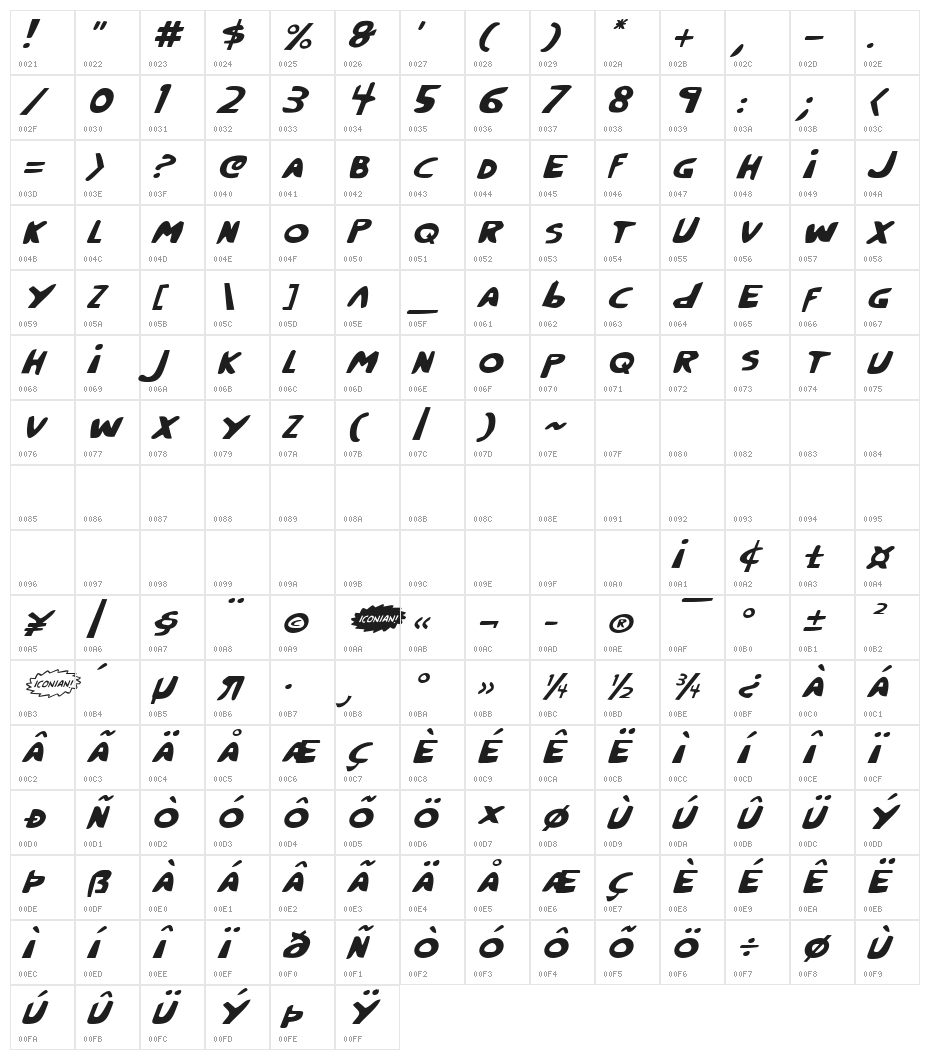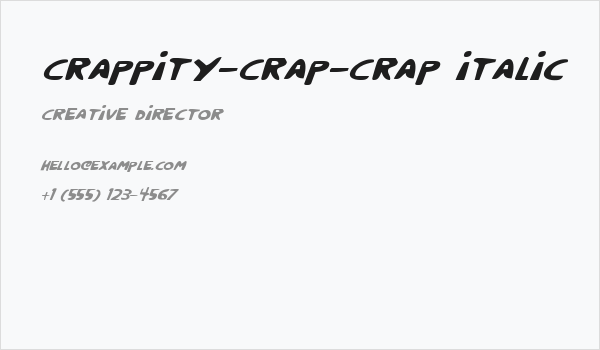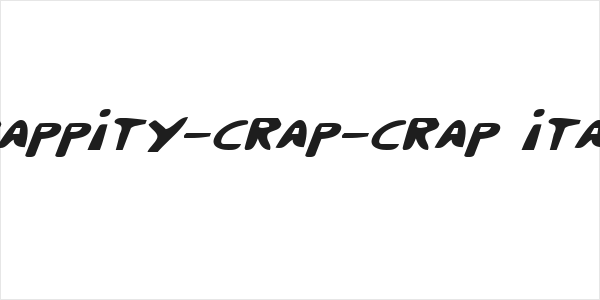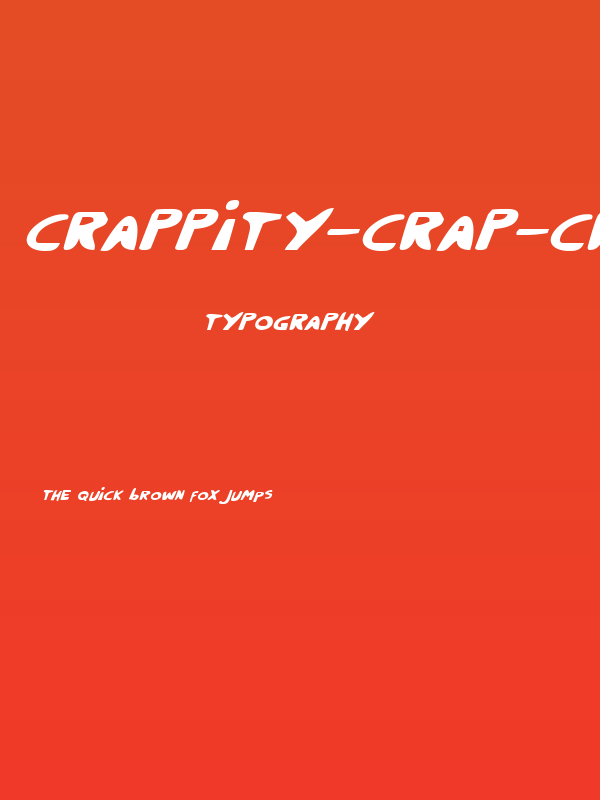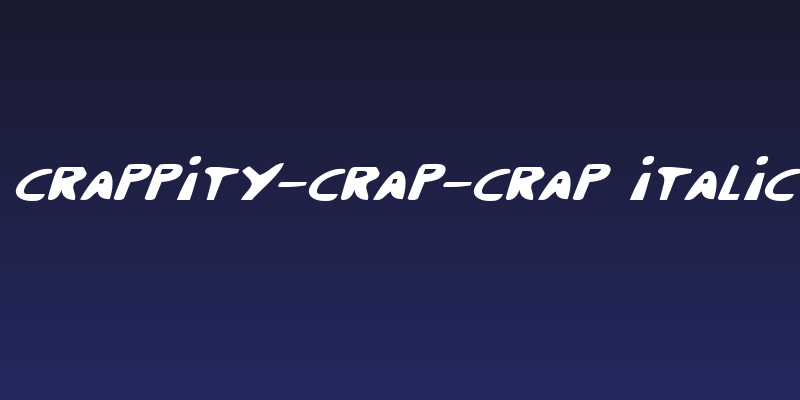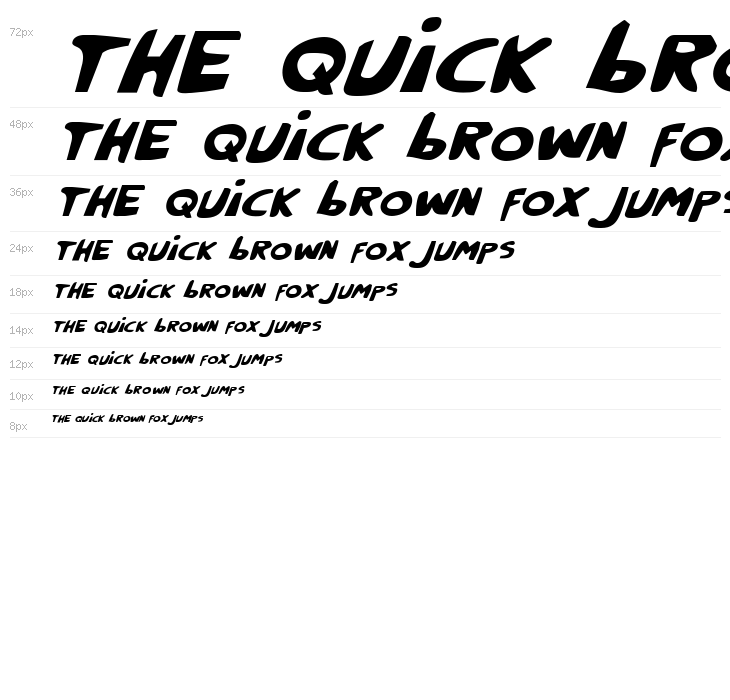
Crappity-Crap-Crap Italic Font
Crappity-Crap-Crap Italic Description
This font features a bold and dynamic script style with a pronounced italic slant, giving it a sense of motion and energy. The characters are thick and rounded, with smooth curves and a playful, informal appearance. The uppercase and lowercase letters maintain a consistent style, with the lowercase letters slightly smaller in size. The numbers and special characters are designed to match the overall aesthetic, ensuring a cohesive look across all text elements. This font's boldness and unique style make it stand out, while its readability remains intact.